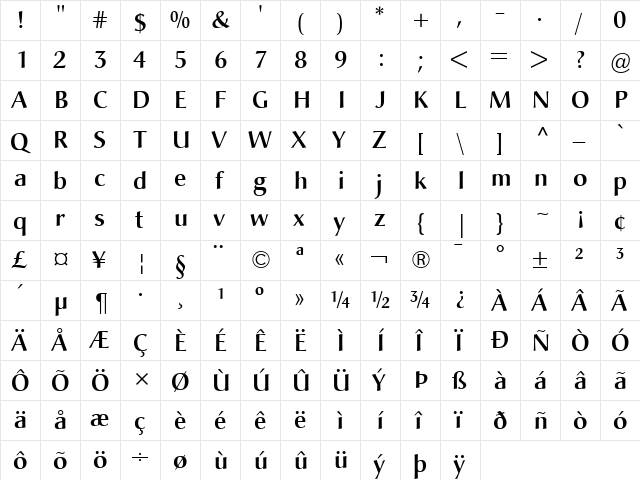
Christiana Bold Font Preview
Christiana Bold
Christiana Bold Font Details
Design Context for Christiana Typeface
Christiana offers clean, dependable letterforms without strong stylistic allegiance, making it a practical choice for designers who need flexibility. Its bold stroke weight gives it real presence on the page.
Pro Tip: Pair Christiana with a font of contrasting weight or personality to build a more expressive typographic hierarchy.